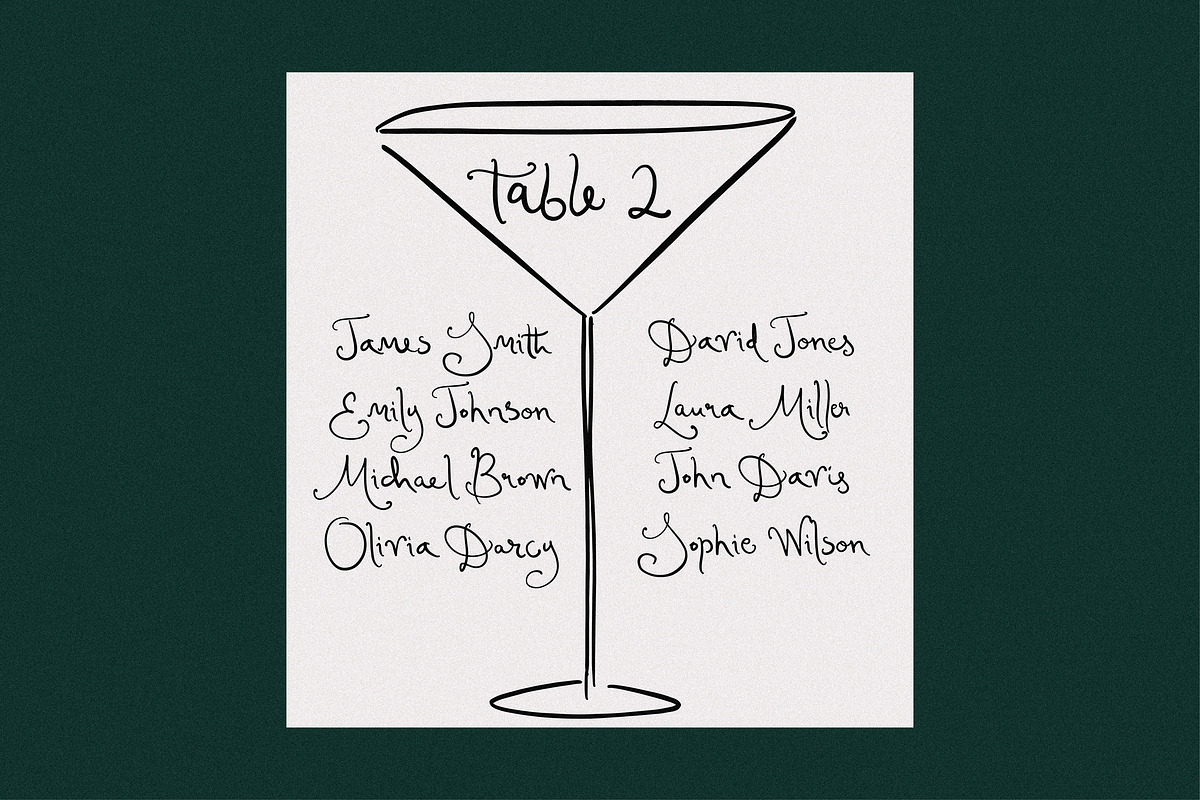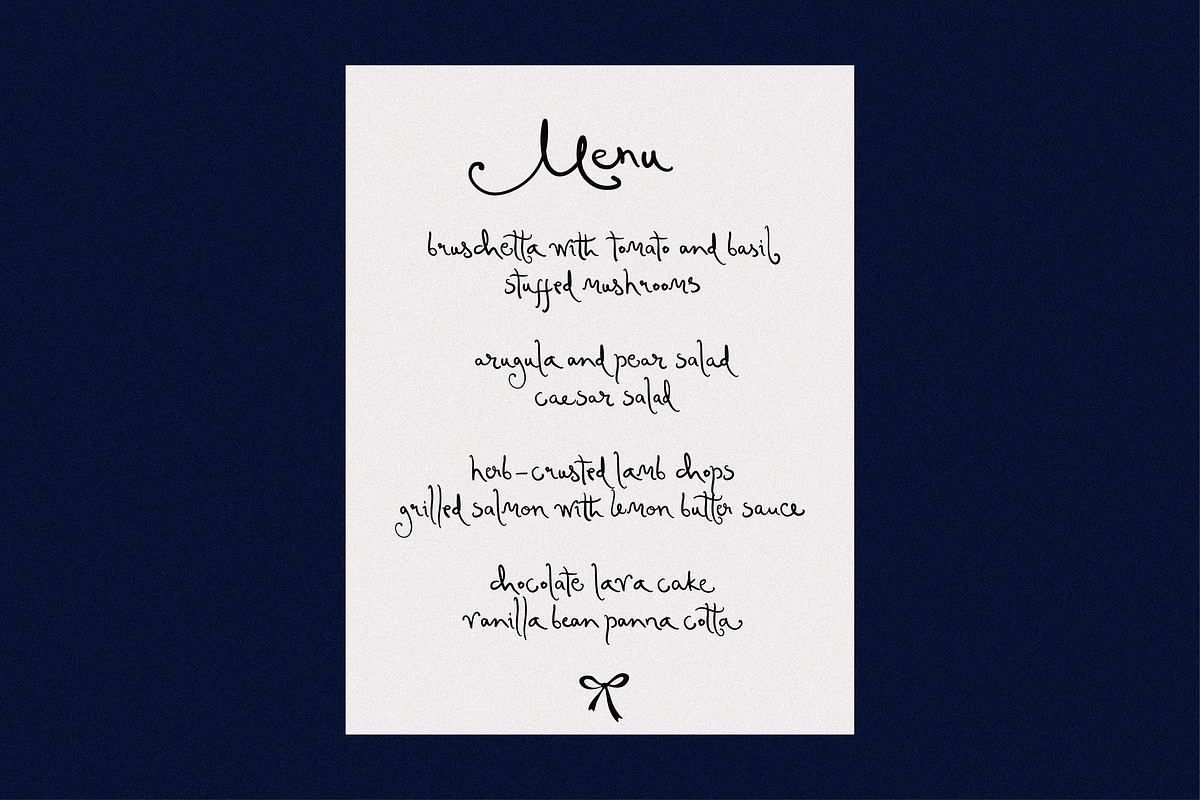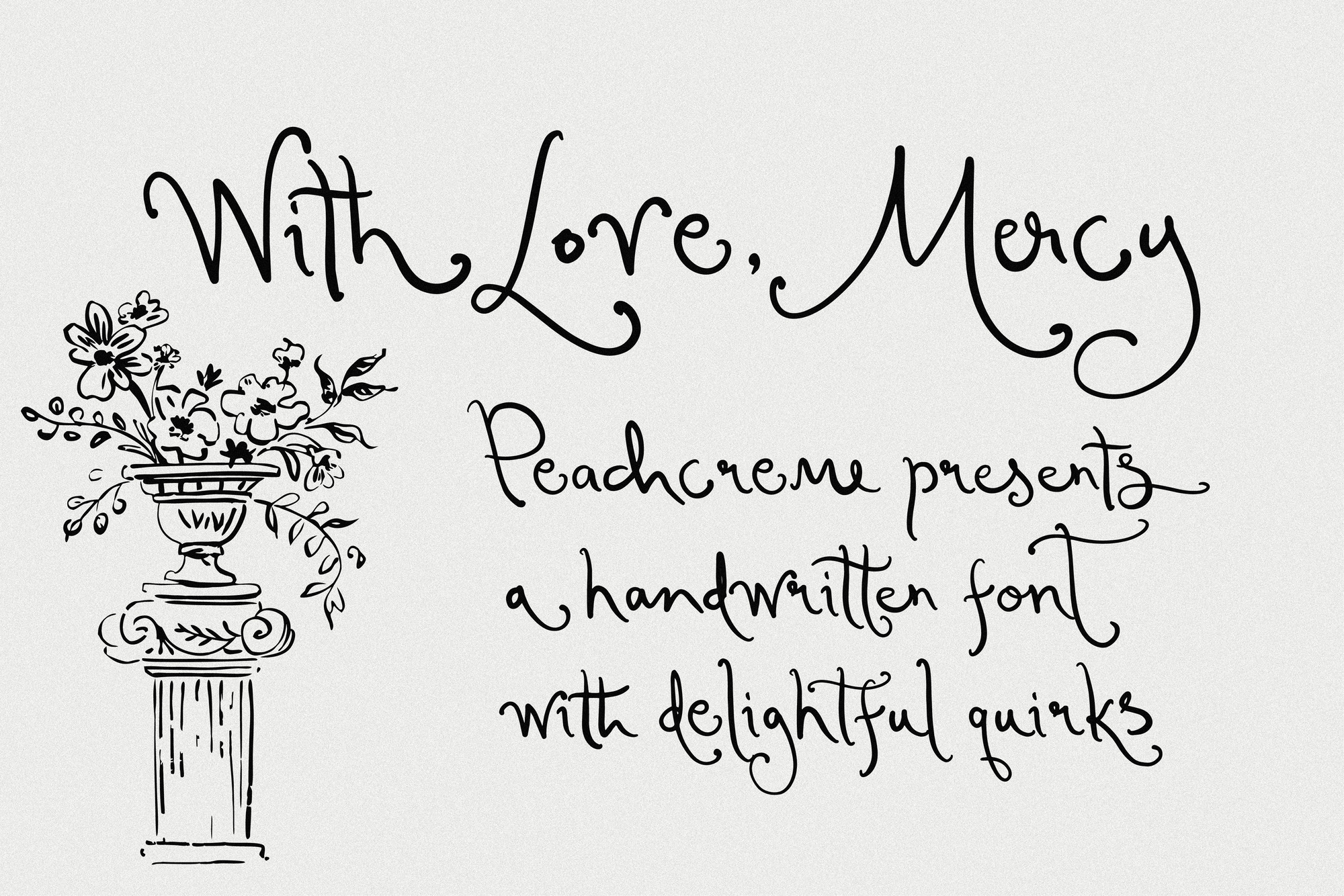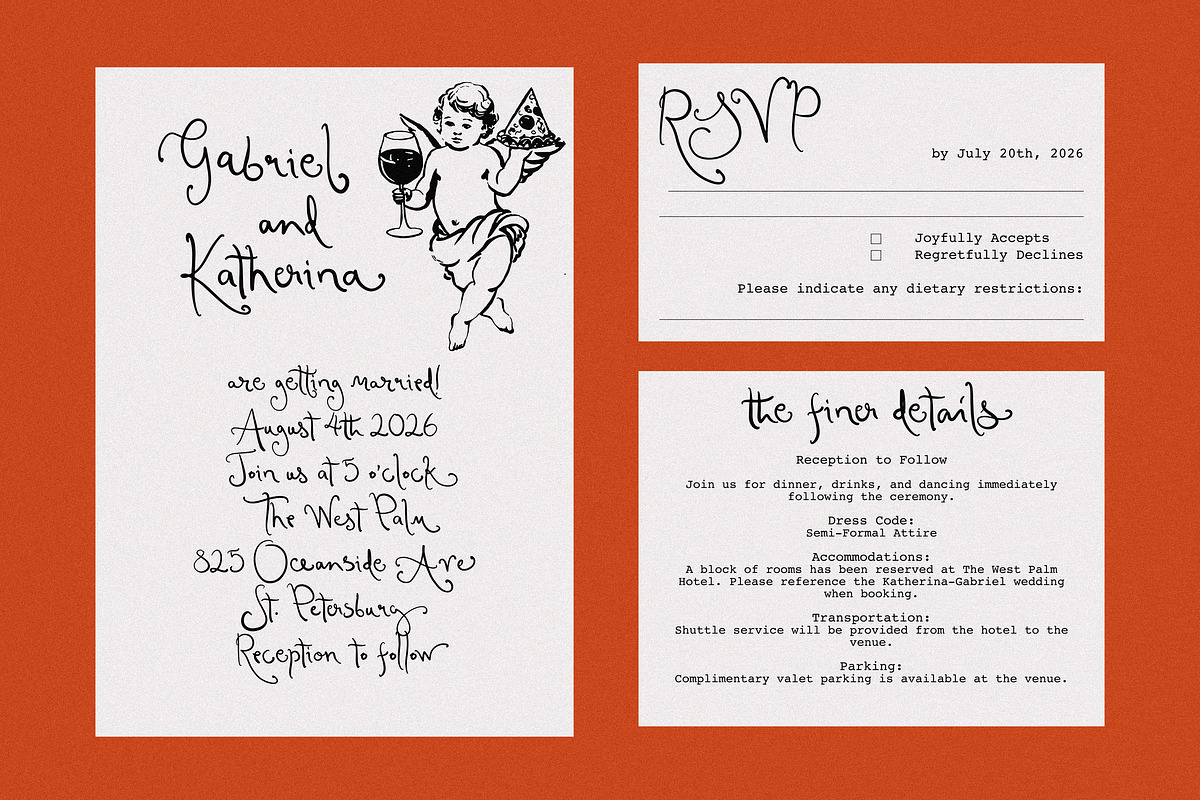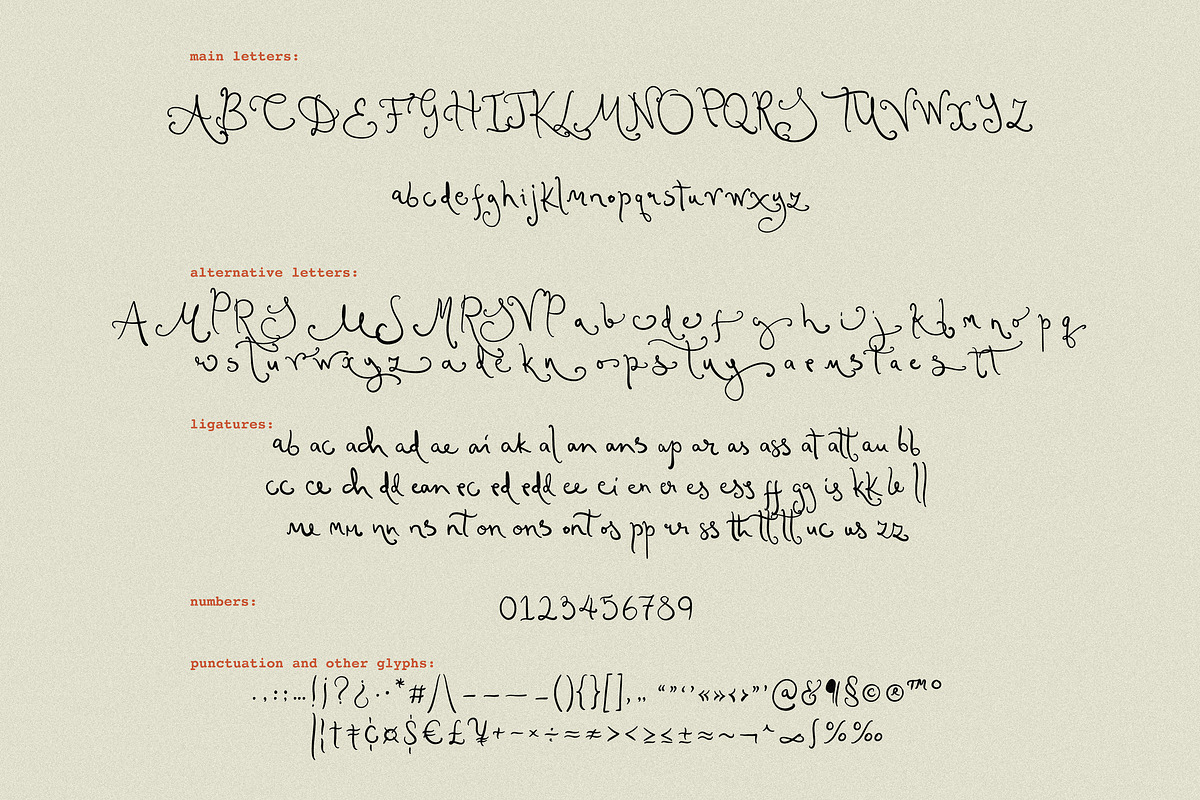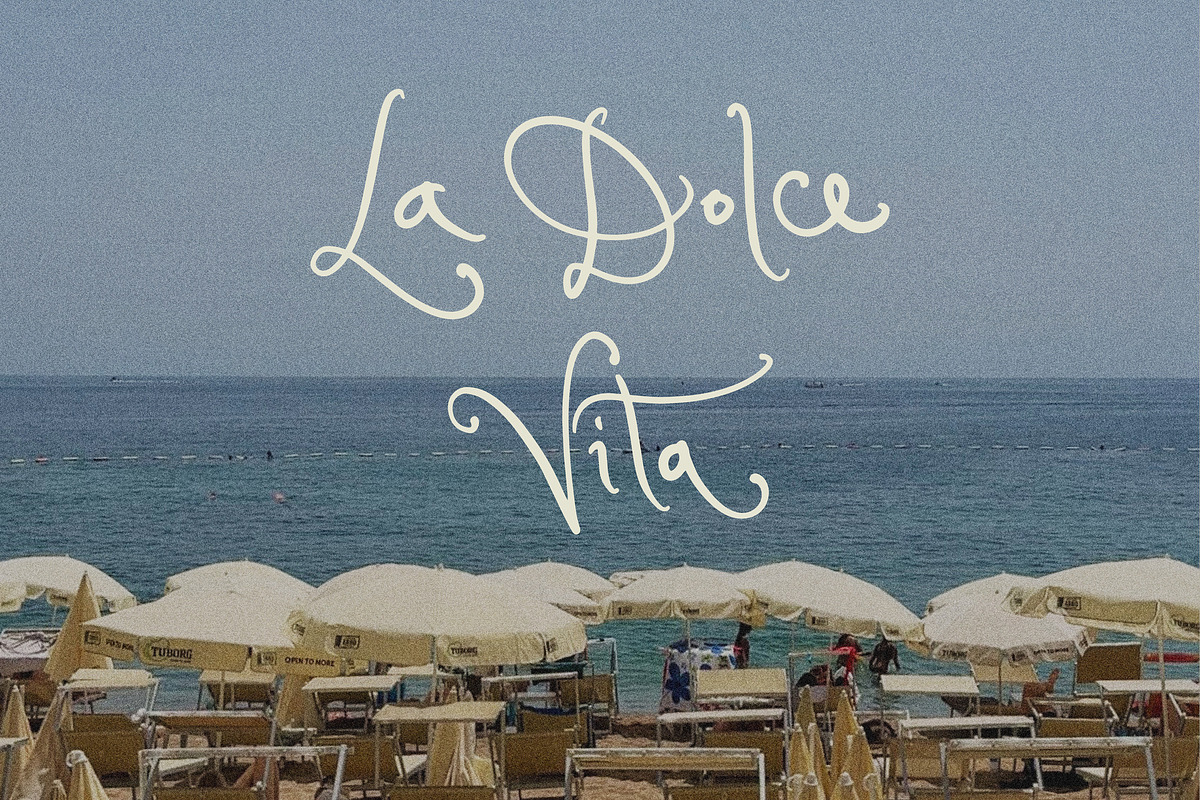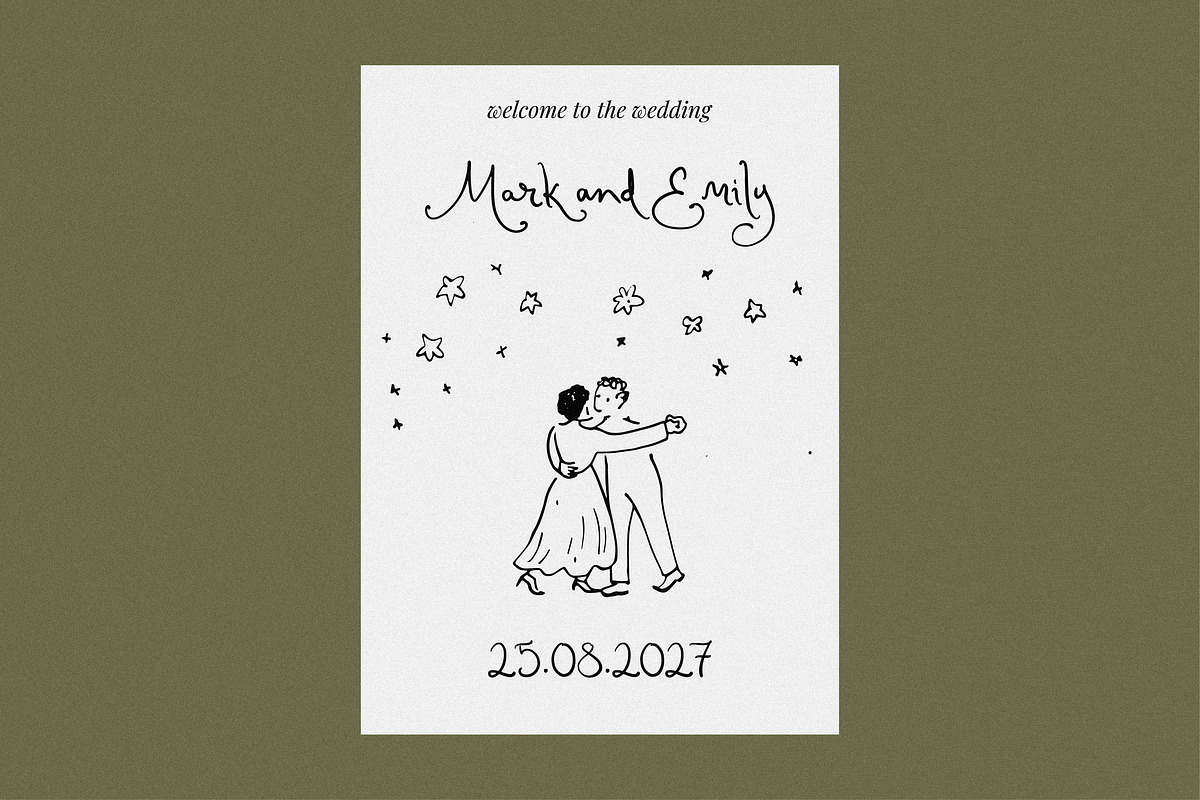
With Love, Mercy // Quirky Font
Introducing "With Love, Mercy" by Peachcreme—a whimsical and playful handwritten font that stands out with its quirky and irregular letter shapes and directions. This font doesn't follow traditional rules, making it a unique addition to your font collection. Each lowercase letter comes with at least one alternative version, offering flexibility and creativity in your designs. However, only a few uppercase letters—A, M, P, R, and S—have alternatives.
Please keep in mind that "With Love, Mercy" is best used as a complementary font due to its unconventional nature. While it adds a delightful handwritten feel to specific projects, it may not be suitable for every text or as your primary font.